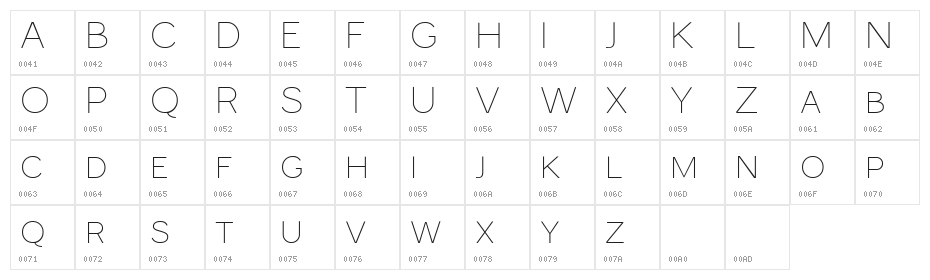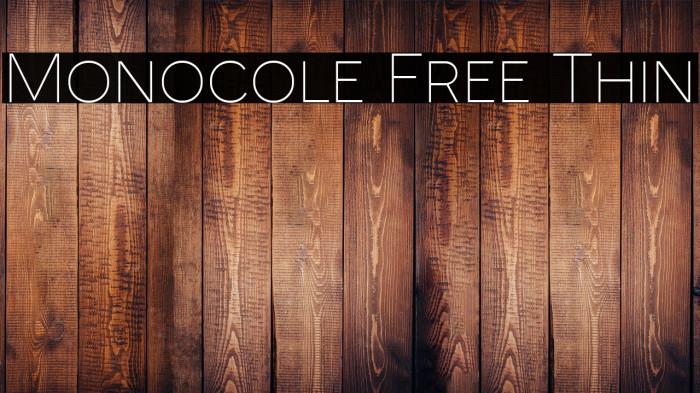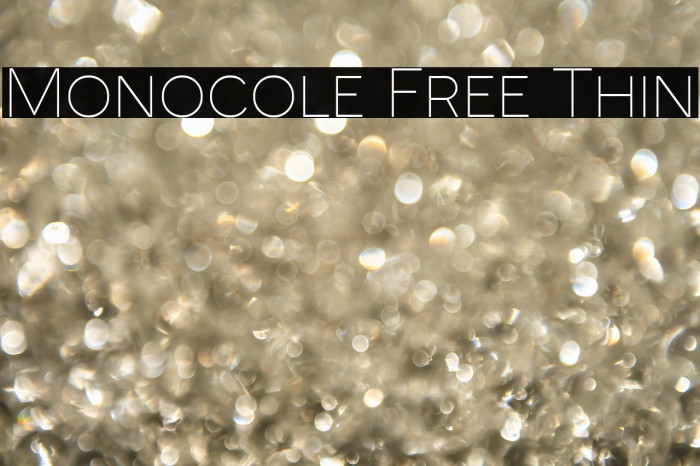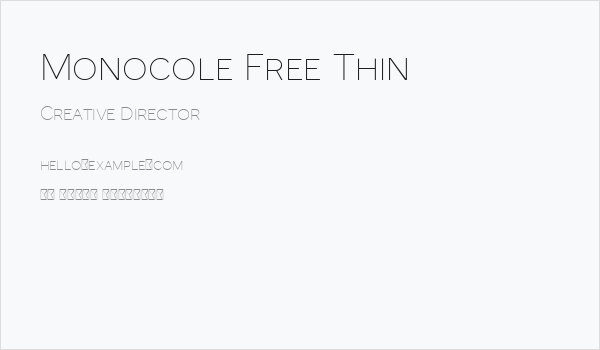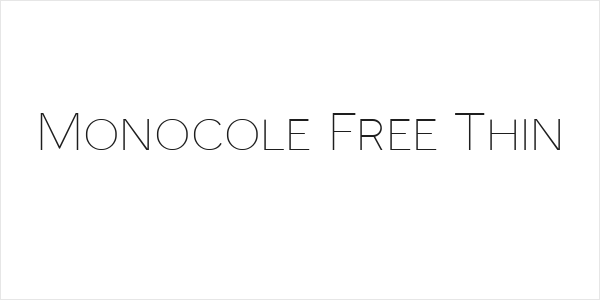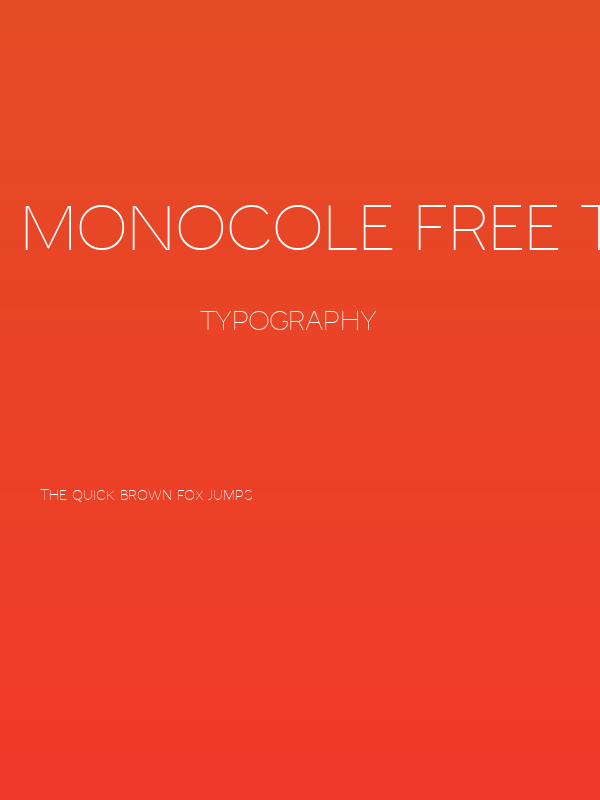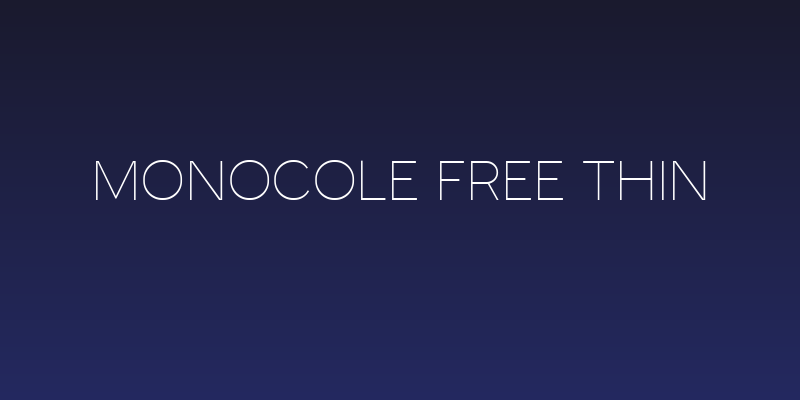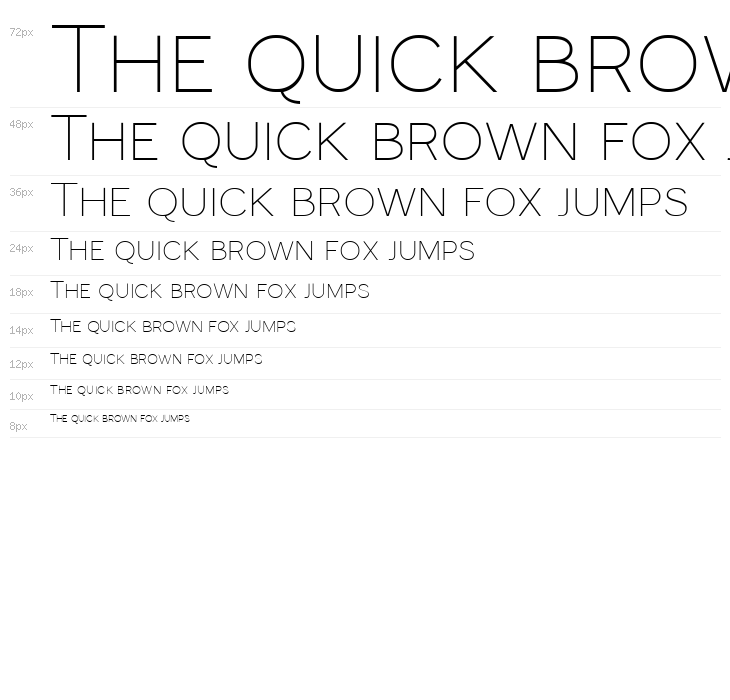
Monocole Free Thin Font
Monocole Free Thin Description
This font features a sleek and minimalist design with thin, uniform strokes that create a clean and modern appearance. The characters are evenly spaced, contributing to a balanced and harmonious look. The uppercase letters are tall and elegant, while the lowercase letters maintain a consistent style that complements the overall aesthetic. The numerals are straightforward and easy to read, making them suitable for various applications. The special characters are designed with the same attention to detail, ensuring they blend seamlessly with the rest of the font. This font's simplicity and clarity make it versatile for both digital and print media.
| Proposed Projects | Ideal for modern branding, minimalist design projects, editorial layouts, and digital interfaces. |